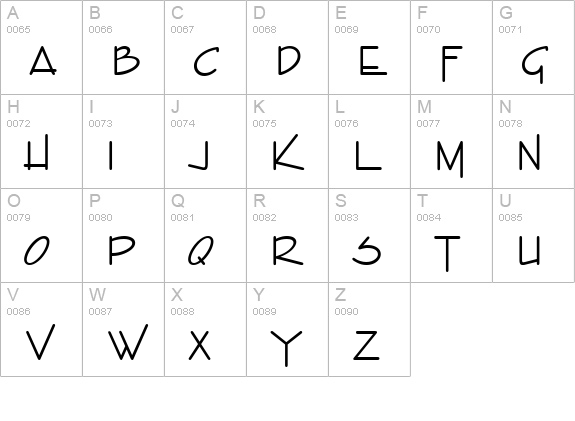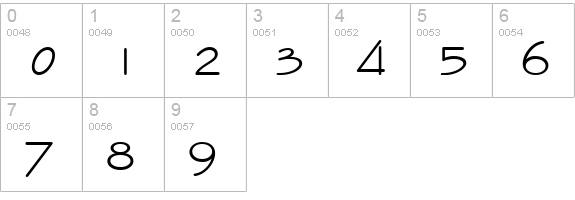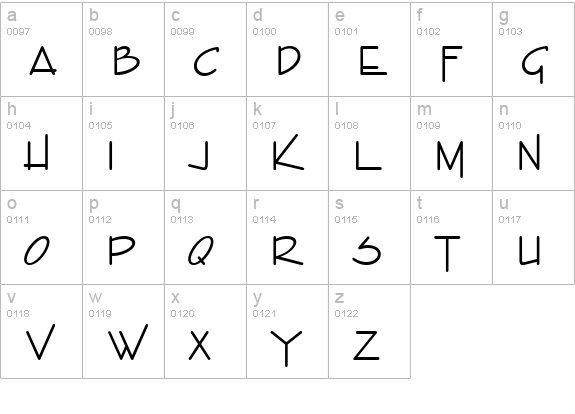
Entebbe-Regular is the standard, neutral variant in the Entebbe typeface family \xE2\x80\x94 well suited to general body text, paragraphs, and standard typographic work.
Entebbe-Regular font is a modern and versatile typeface that exudes elegance and sophistication. With its clean lines and balanced proportions, this font is perfect for a wide range of design projects, from branding to editorial layouts. The classic yet contemporary design of Entebbe-Regular makes it a timeless choice for any creative endeavor. Best of all, Entebbe-Regular font is available for free download at FontsMarket.com. This means you can easily access and use this high-quality font in your projects without any cost. Whether you are a designer, a student, or a business owner, Entebbe-Regular font offers a professional and polished look that will elevate your work to the next level. Download it today and add a touch of refinement to your designs!